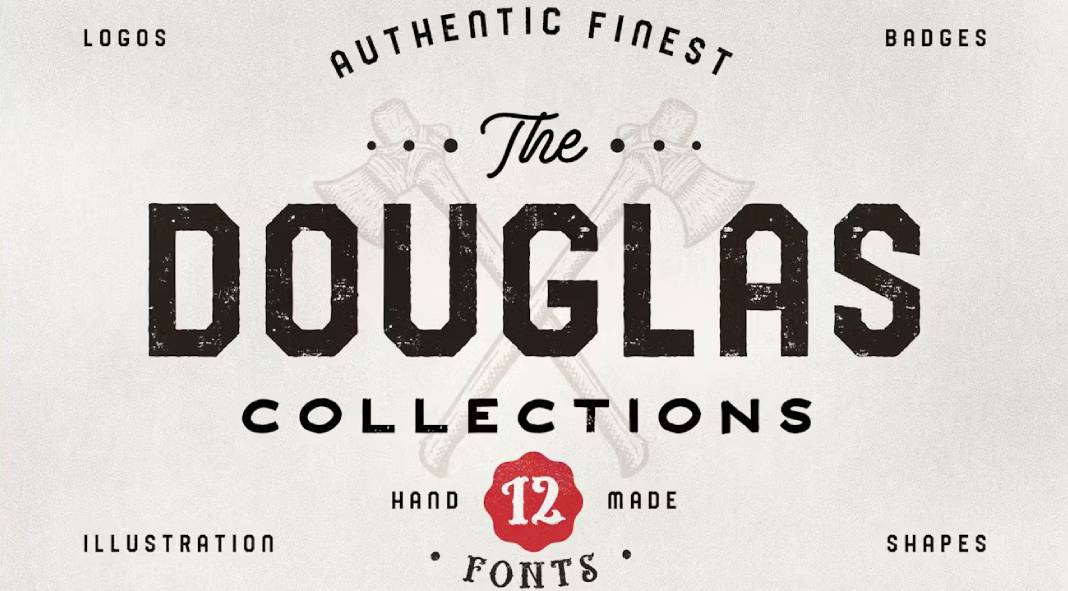
Unveiling the Timeless Elegance: The Douglas Vintage Font Collection by Adam Fathony.
Finding the perfect blend of vintage charm and modern versatility can be a daunting task. But fear not, for Adam Fathony brings forth the Douglas Vintage Font Collection—a treasure trove of 12 handmade font files, 25 detailed illustrations, 24 editable text logos, and 36 shape badges (72, if you count the line version of badges). This collection is not just a set of design elements; it’s an artistic journey that breathes life into your creations.
A Symphony of Fonts
The Douglas Vintage Font Collection boasts 12 distinct font files, each with a rugged charm that is hard to resist. From the flowing script of Douglas Aaronade to the bold statement of Douglas Wolves Sans, each font is meticulously crafted to evoke a sense of timeless elegance. The variety in styles allows you to mix and match fonts seamlessly, giving you the creative freedom to design with flair.
Illustrations That Tell a Story
Logos with a Personal Touch
Badges That Command Attention
The Art of Mixing and Matching
Creating the vintage display image of your dreams has never been easier. With the Douglas Vintage Font Collection, you have the power to mix and match fonts, illustrations, and badges to suit your vision. Whether you’re working with a two-tone color palette or vibrant designs, this pack is your go-to resource for logos, posters, advertising, book covers, and beyond.
Unlock Your Creative Potential
Embrace the artistry, embrace the vintage, and let the Douglas Vintage Font Collection elevate your designs to new heights. Adam Fathony has curated a masterpiece, and it’s time for you to unleash your creativity with this monumental collection.